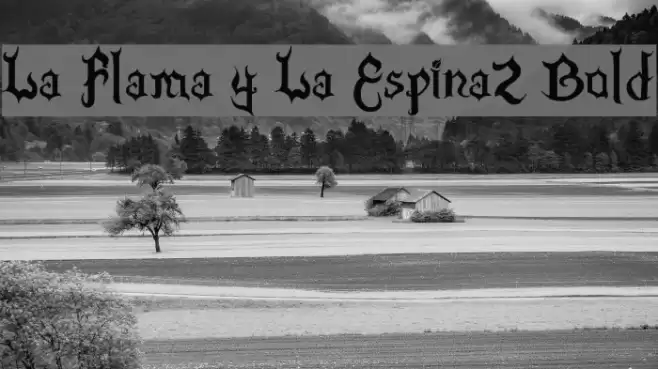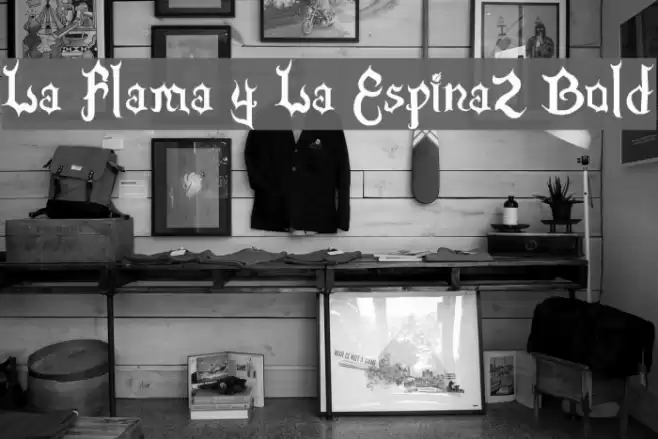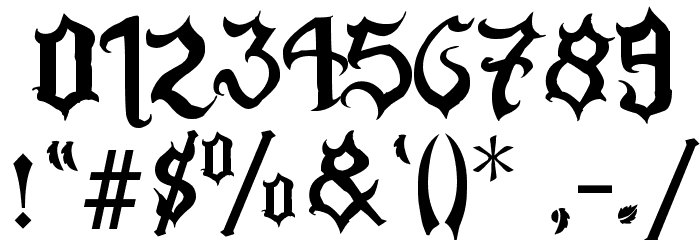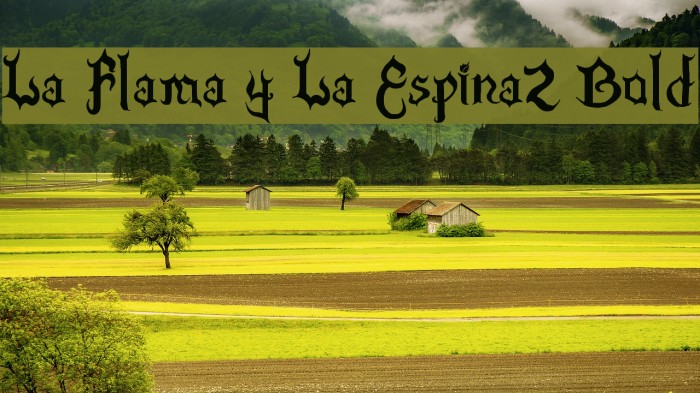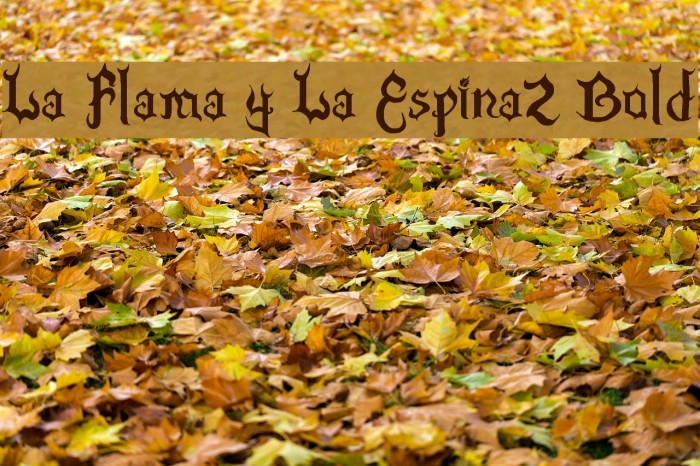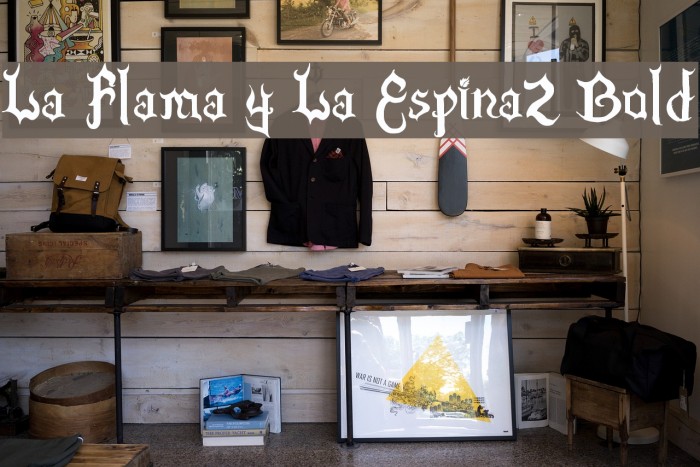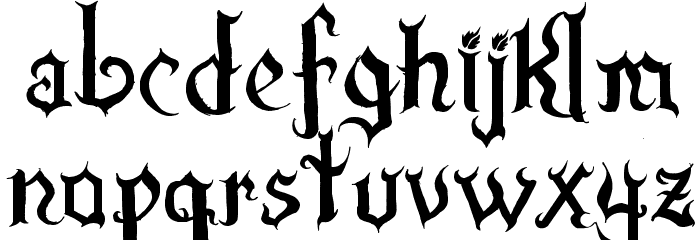
La Flama y La Espina2 Bold Font
La Flama y La Espina2 Bold Description
This font features a dramatic and intricate design, reminiscent of traditional blackletter styles. The characters are bold and angular, with sharp serifs and decorative flourishes that give it a gothic and medieval appearance. The uppercase letters are particularly ornate, with exaggerated curves and pointed edges, while the lowercase letters maintain a consistent style with slightly less embellishment. The numerals and special characters follow the same aesthetic, ensuring a cohesive look across all elements. This font is ideal for creating a striking visual impact, suitable for projects that require a historical or fantasy theme.
A bold, gothic blackletter font with intricate, decorative details from Uncategorized fonts.
by JuanCasco - Weight: Bold
- Proposed Projects: Ideal for fantasy-themed designs, historical event posters, gothic book covers, or any project requiring a dramatic, medieval aesthetic.
- Overall Style: Gothic, Medieval, Decorative